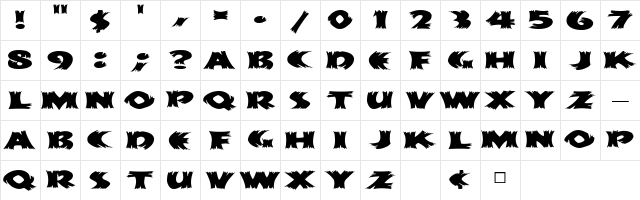
HayStackMF Wide
Style: Wide
Design Context for HayStackMF
HayStackMF is a composed and adaptable typeface that performs quietly and consistently across a wide range of design contexts.